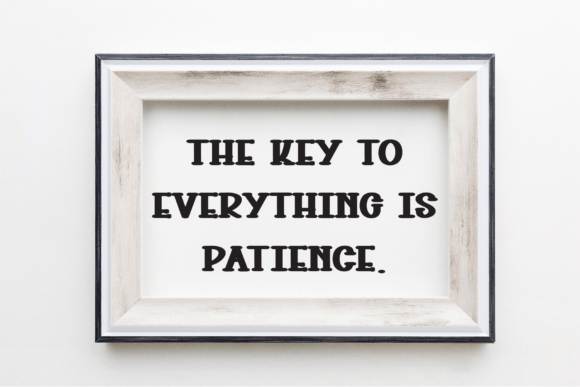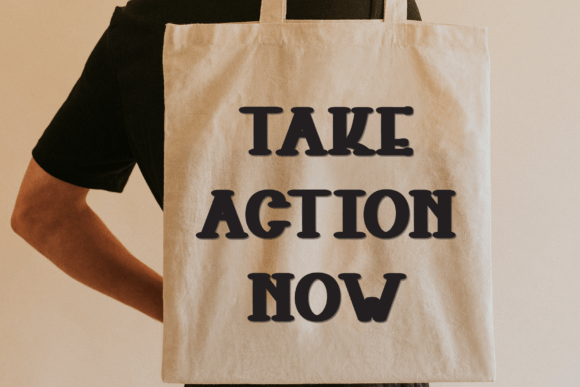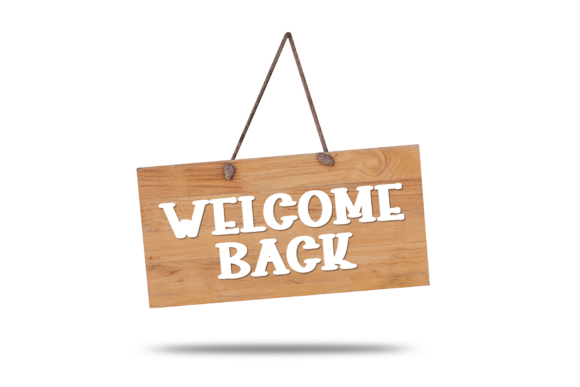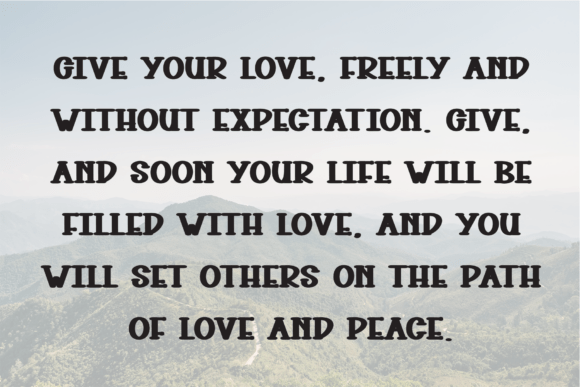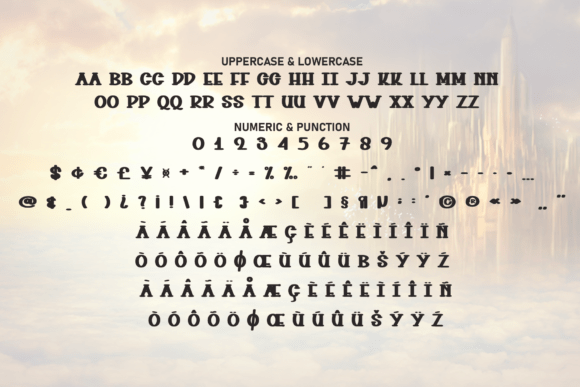
Find Your Summer Vibes with Fantastic Font
Who else is already counting down the days until summer? For many of us, the warmer months evoke feelings of freedom, adventure, and a carefree attitude. As designers, we’re always on the lookout for the perfect font to capture that laid-back spirit and bring our creative visions to life. And that’s where Fantastic Font comes in – a neat and casual display font that’s sure to transport your audience to a sun-kissed state of mind.
With its clean lines and easygoing vibe, Fantastic Font is the perfect companion for summer posters, event flyers, and playful branding projects. Whether you’re creating a beachy invitation or a fun social media campaign, this cheerful typeface brings a breezy, laid-back feel that’s sure to delight your viewers.
Fantastic Font Key Features
- Unique Character Set: Fantastic Font includes a wide range of characters, including Latin, Cyrillic, and Greek alphabets, as well as a variety of punctuation marks and symbols.
- Contextual Alternates: The font features contextual alternates, which allow the font to adjust its shape and form based on the surrounding text, creating a more natural and elegant look.
Fantastic Font Review
Overall, I think Fantastic Font is a solid choice for any designer looking for a modern and elegant font. ✨ Here are some of its standout features:
- Extensive character set: It includes a wide range of characters, from Latin to Cyrillic, making it suitable for projects that require multilingual support.
- Highly customizable: The font can be easily customized to fit your project’s style and tone, from bold and playful to sleek and sophisticated.
However, I do have a few concerns about Fantastic Font. ⚠️ Here are some potential limitations:
- Not ideal for body text: While the font is great for headings and titles, it might not be the best choice for large blocks of body text due to its relatively high x-height.
- Lack of ligatures: Some designers might find the lack of ligatures to be a drawback, especially for projects that require precise typography.
Overall, I think Fantastic Font is a great addition to any designer’s toolkit, but it’s essential to consider its limitations and use it judiciously. With its modern look, extensive character set, and high customizability, it’s sure to elevate your designs to the next level.
Getting the Most Out of Fantastic Font
Here are some tips for getting the most out of Fantastic Font:
- Use it for headings and titles to add a touch of elegance and sophistication.
- Pair it with bold or italic fonts to create a striking contrast.
Here are some common use cases for Fantastic Font:
- Business cards and brochures.
- Book covers and magazine layouts.
Alternatives to “Fantastic Font” for Designers
Akzidenz Grotesk
Akzidenz Grotesk is a classic sans-serif font that is often used in corporate and editorial design. It has a similar feel to Fantastic Font, but with a more structured and geometric aesthetic. Use Akzidenz Grotesk for designs that require a professional and timeless look.
Comparison: Akzidenz Grotesk has a more rigid structure and is often used for body text, whereas Fantastic Font is more versatile and can be used for headings and titles.
Q: What is the recommended font size for using Fantastic Font?
The recommended font size for using Fantastic Font is between 12pt and 24pt. However, the optimal font size may vary depending on the specific design and intended use. It’s always a good idea to test the font at different sizes to ensure it looks its best in your design.